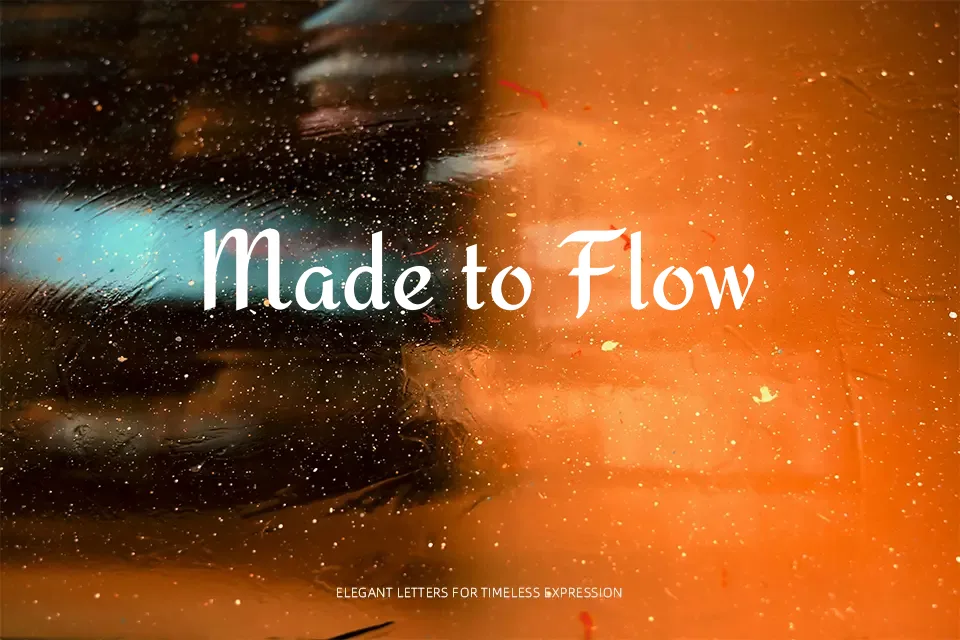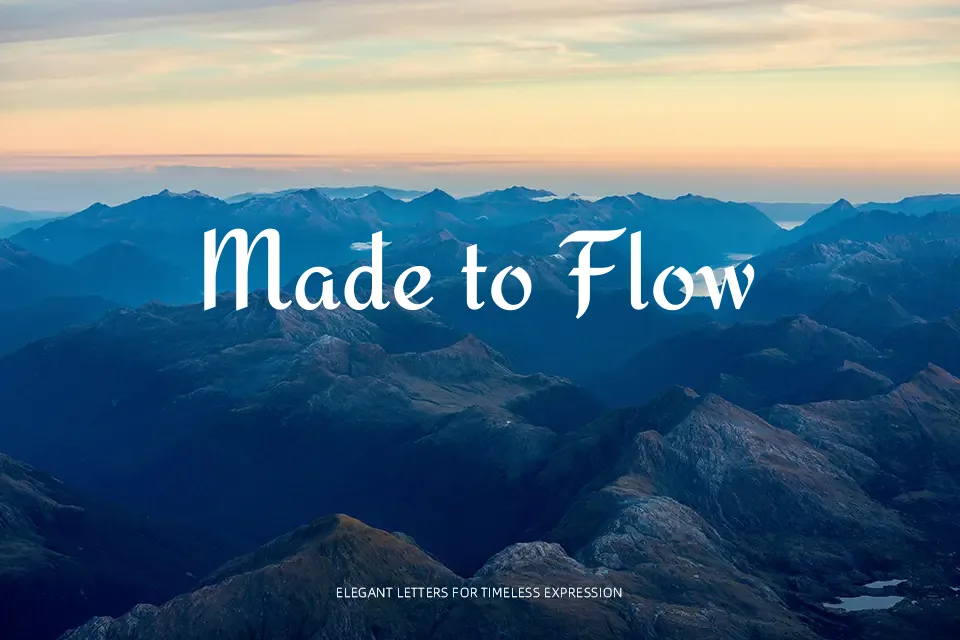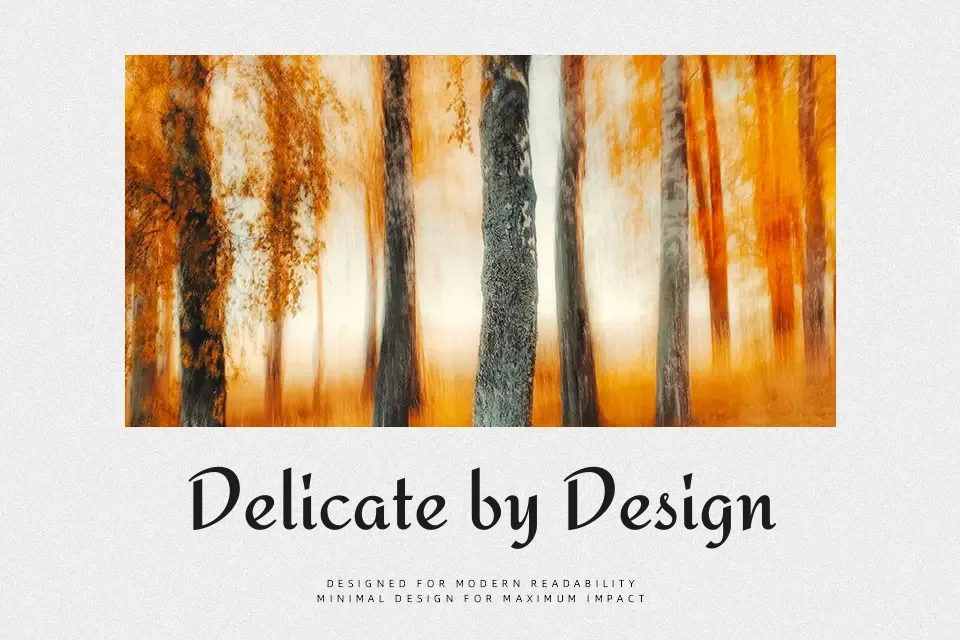
Redressed Font
Designed by Astigmatic
Redressed sits between casual handwriting and classic script, with medium-weight strokes, upright, non-connecting letters, and generous spacing that keeps words readable even at smaller sizes. It carries a relaxed, slightly vintage polish rather than strict formality, so it brings personality without looking messy. I like it for names, short taglines, and event titles where you want warmth and style but still need quick legibility, such as wedding suites, café menus, or boutique branding. It starts to feel repetitive and less comfortable in dense paragraphs or highly technical interfaces, where a calmer sans serif will simply work better.
Short branding wordmarks and product names
Invitations, menus, and event titles with a personal tone
Social media quote graphics and overlays
Long-form body text or dense paragraphs
Highly technical interfaces or data-heavy dashboards
Ultra-formal corporate communications
Perfect for branding, invitation, and logo, with a artistic and handwritten style.